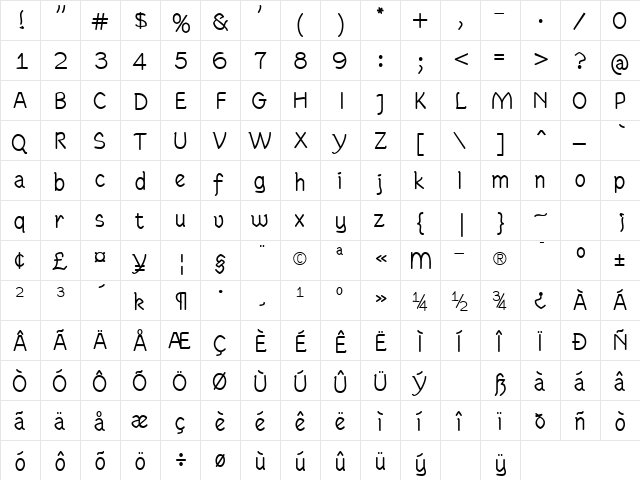
RundigPencilMedium Regular
Design Context for RundigPencilMedium Typeface
RundigPencilMedium is a composed and adaptable typeface that performs quietly and consistently across a wide range of design contexts.